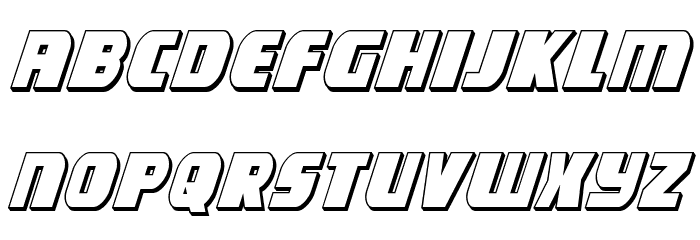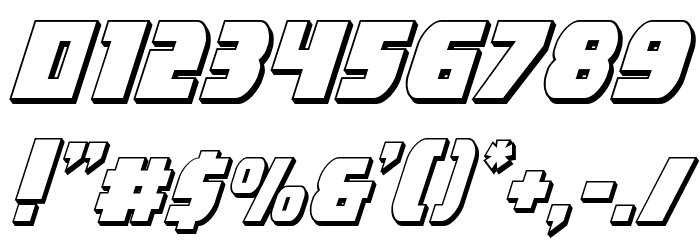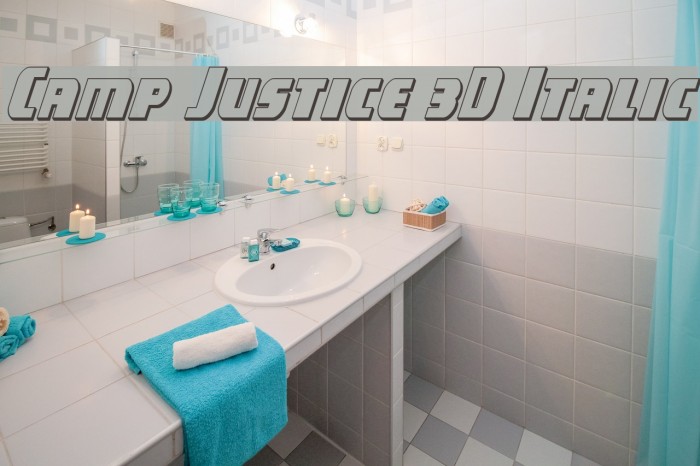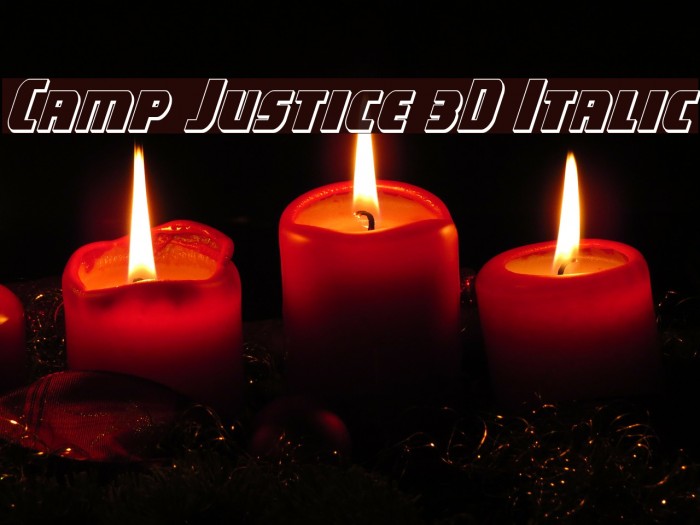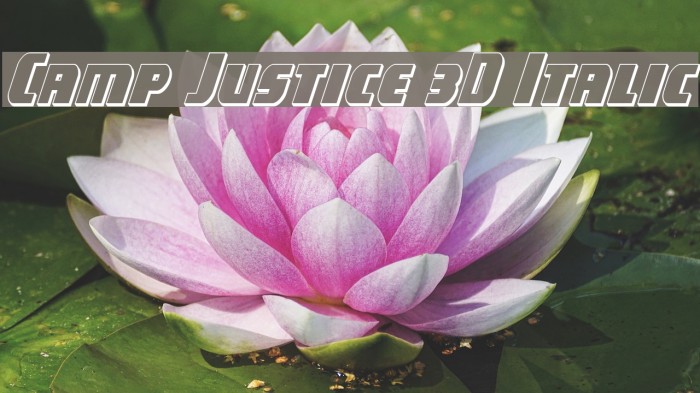
Camp Justice 3D Italic Font
This font features a bold, three-dimensional italic style that commands attention. Its blocky, geometric letterforms are outlined, creating a striking visual effect that adds depth and dimension. The uppercase and lowercase letters maintain a consistent width, contributing to a cohesive and uniform appearance. The numerals and special characters follow the same design principles, ensuring versatility across various applications. The font's strong presence makes it ideal for projects that require a bold statement, such as posters, headlines, and branding materials.
A bold, 3D italic font with geometric outlines and strong visual impact.
- Font: Camp Justice 3D Italic
- Proposed Projects: Ideal for posters, headlines, branding, and any design needing a bold statement.